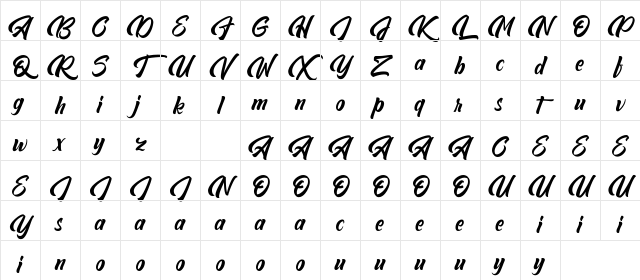
Abeganshi Regular Free Font
Abeganshi Regular
Foundry: Kotak Kuning Studio
Designer: Kotak Kuning Studio
Complete Abeganshi Regular glyph index. Displaying only characters natively supported by Abeganshi Regular font.
Design Context for Abeganshi
Abeganshi is a composed and adaptable typeface that performs quietly and consistently across a wide range of design contexts.
Who designed the Abeganshi Regular font?